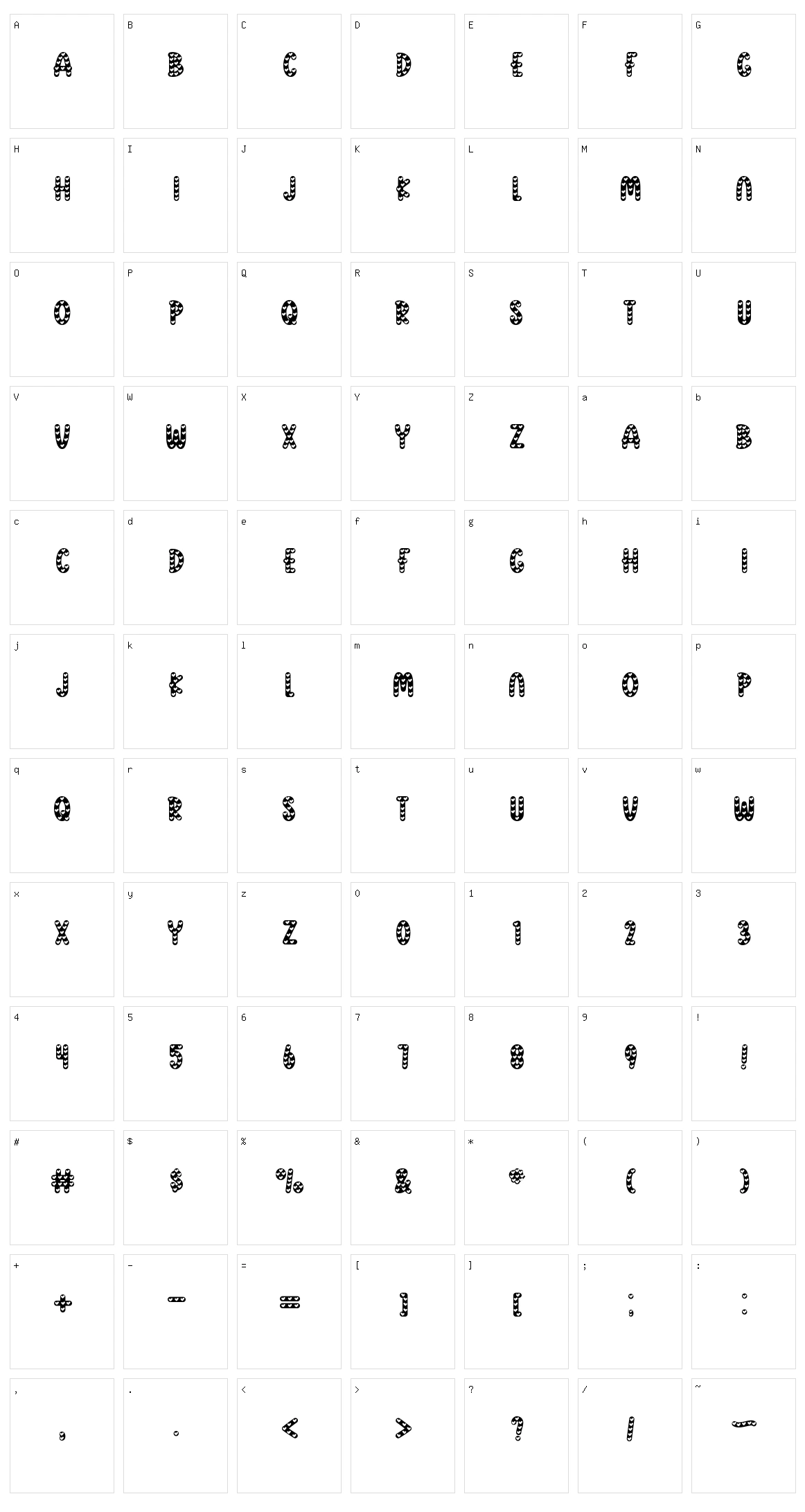
The free font Spring Love Display is carefully designed by Fillo Graphic, showcasing a thoughtful balance of creativity and usability and falls under the Valentine font style. When you download the ZIP file, it contains only 845.46 KB of font files, making it lightweight and quick to download. Please review the license details below to understand permitted usage and distribution rights. If license information is not available, we recommend using this font for personal projects only or contacting the author directly for commercial usage permissions.